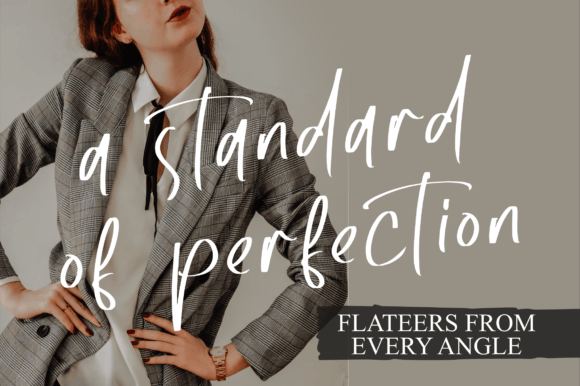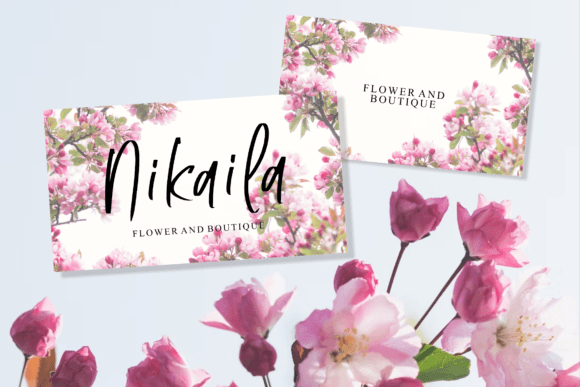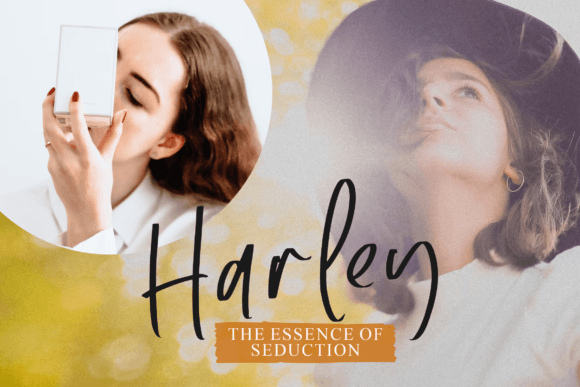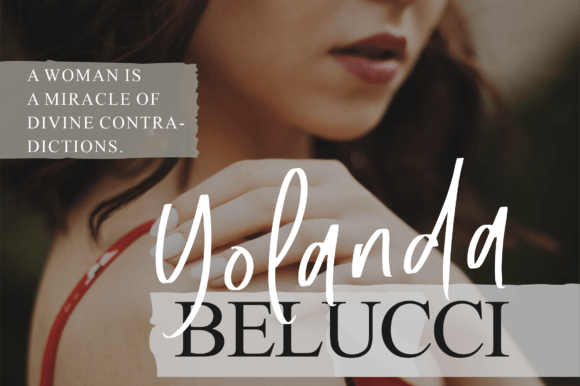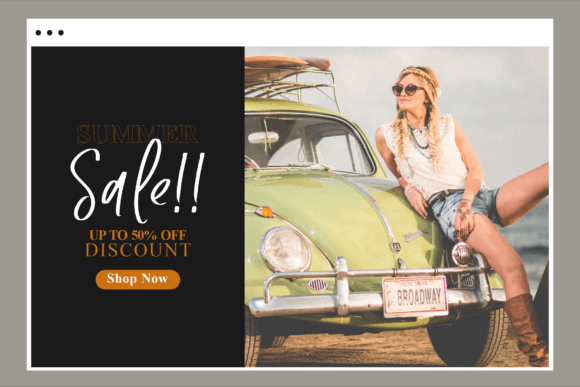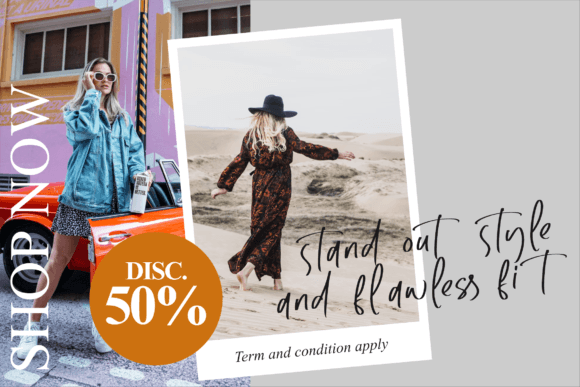
Introduction to Qalistta Font
Qalistta is a beautiful handwritten font suitable for logos, branding projects, homeware designs, product packaging, mugs, quotes, posters, shopping bags, T-shirts, book covers, name cards, invitation cards, greeting cards, labels, photography, watermark, special events, and all your other lovely projects that need a beautiful script taste.
Key Features of Qalistta Font